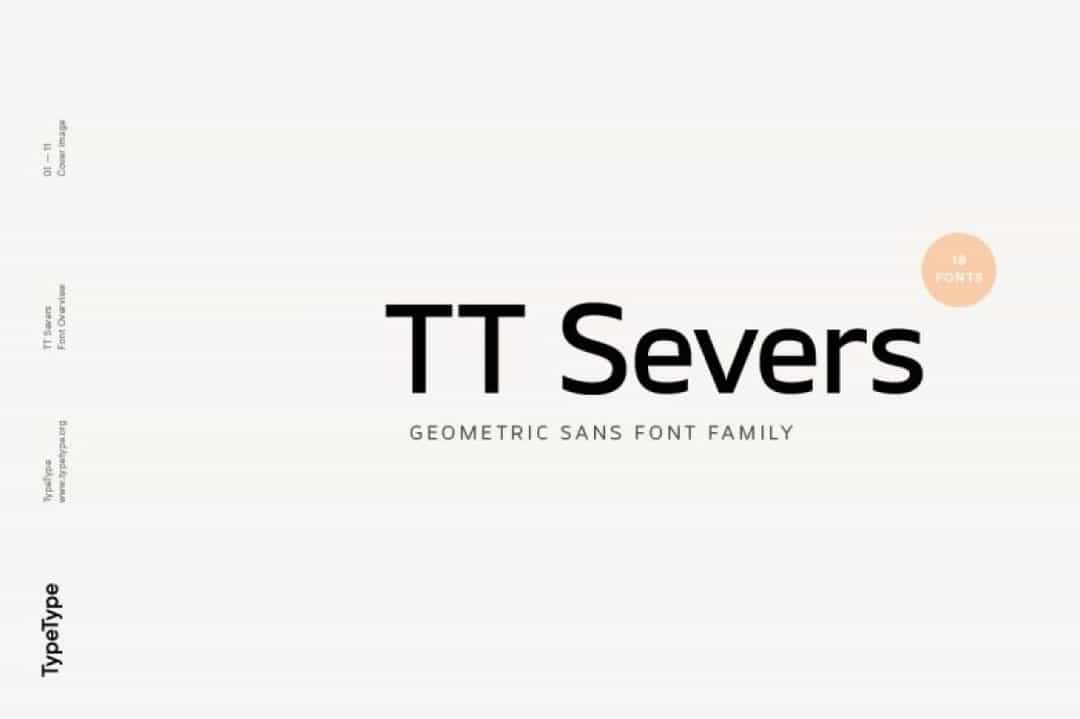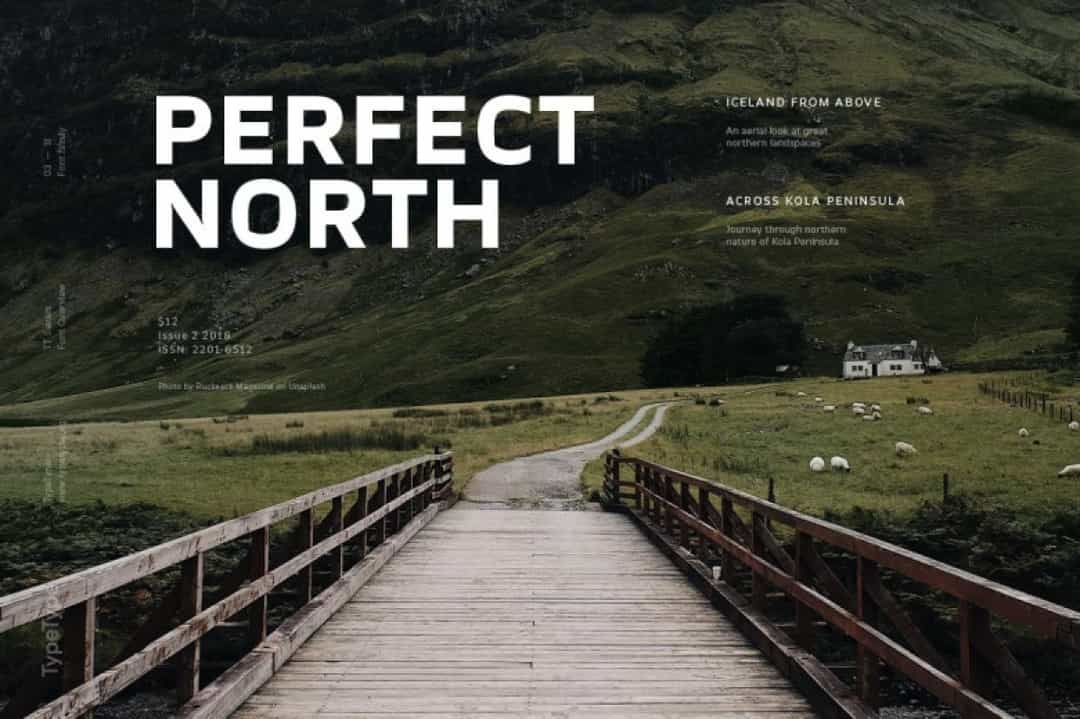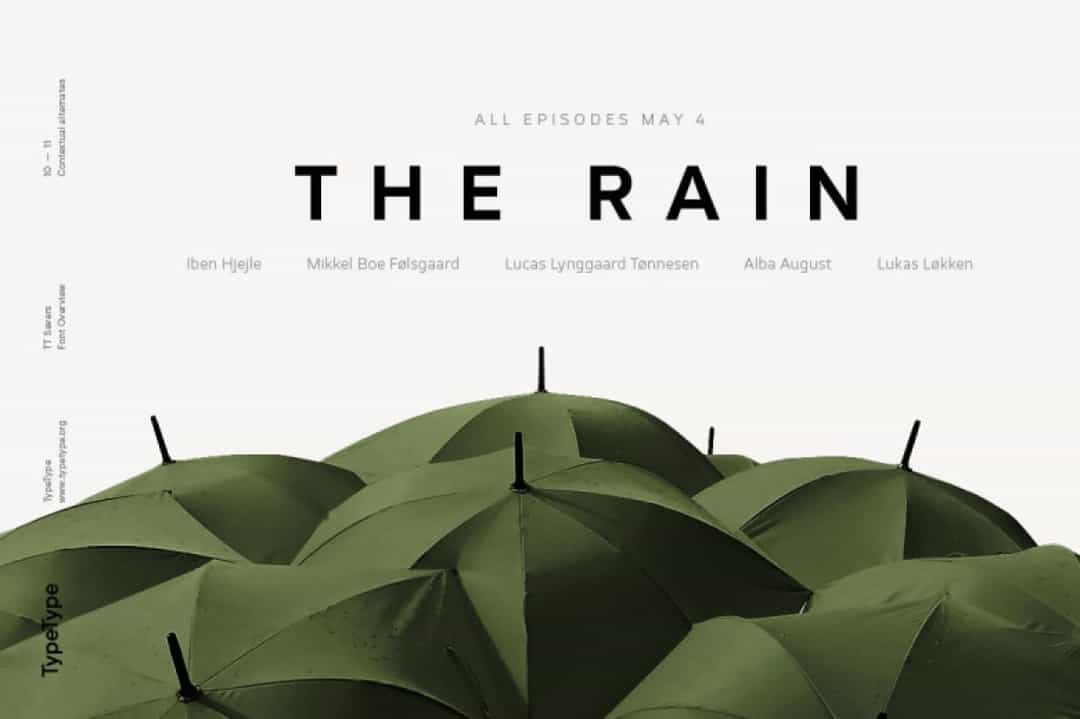
TT Severs stands out with its unusual internal ovals which recall traditional Arabic writing styles. This strong font family is ideal for high tech (IT), internet use and computer games as well as robotics and sports – especially robotics and sports! Additionally, its large size provides unique characterful headliners and logos.